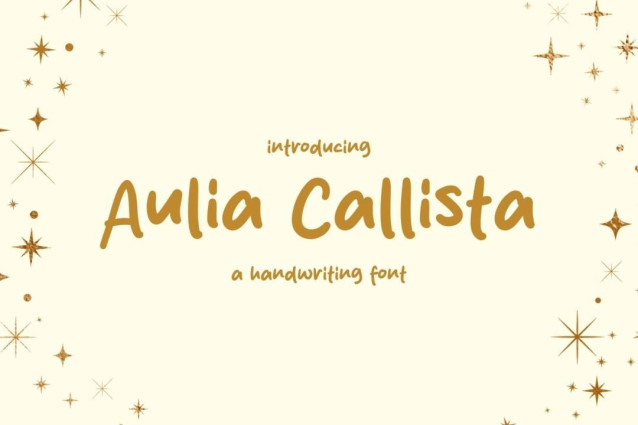
Aulia Callista Font
Aulia Callista Font is a simple and friendly handwritten font. Its natural and unique style makes it incredibly fitting to a large pool of designs. The only limit is your imagination!